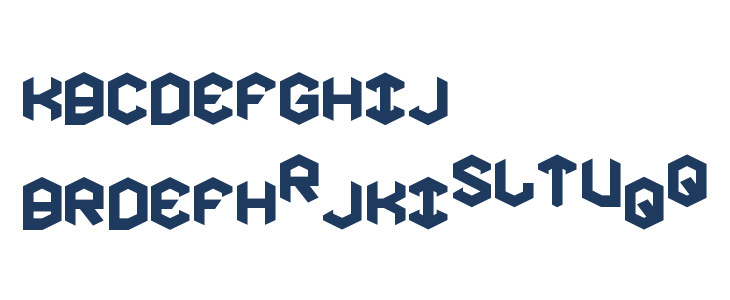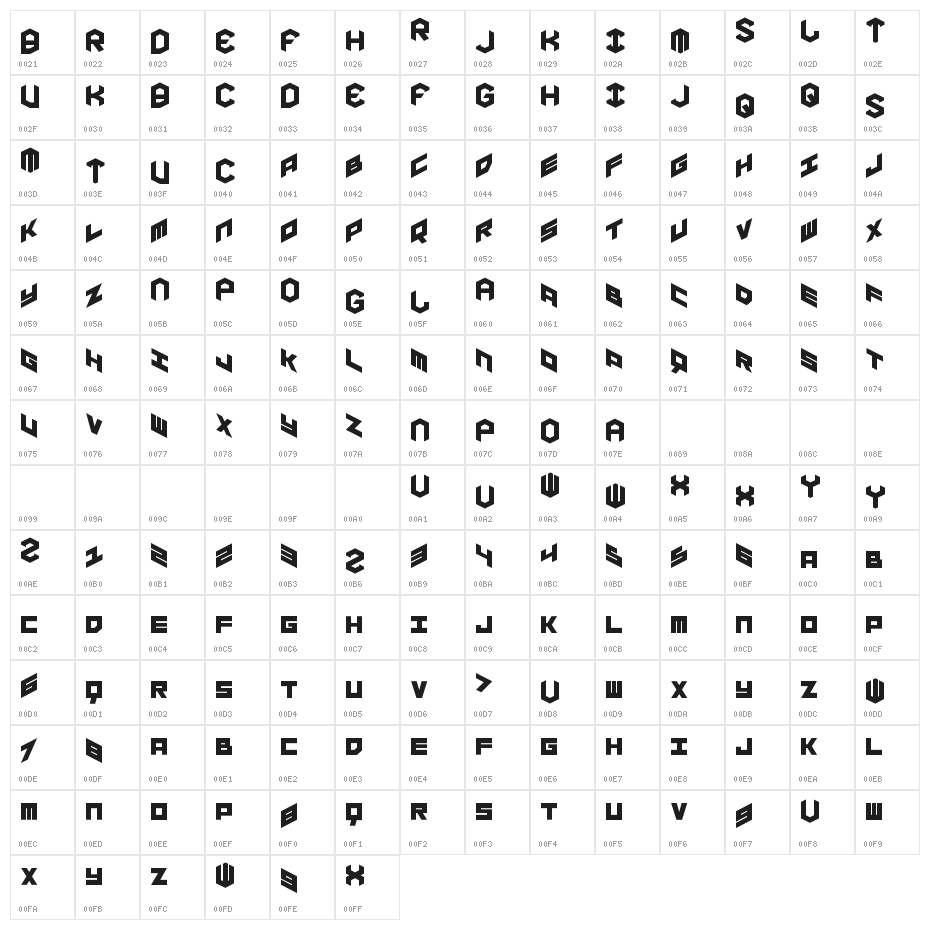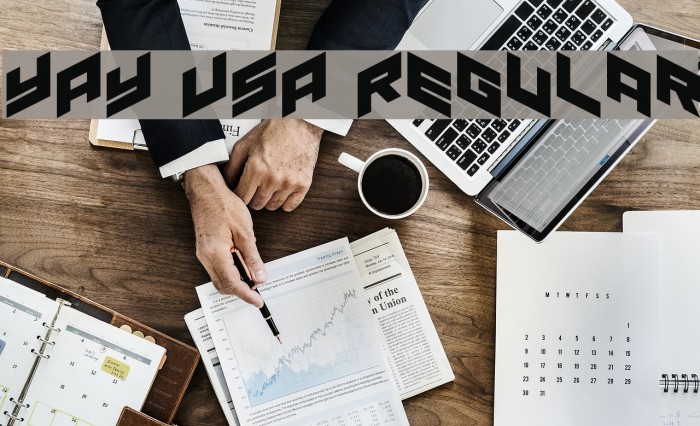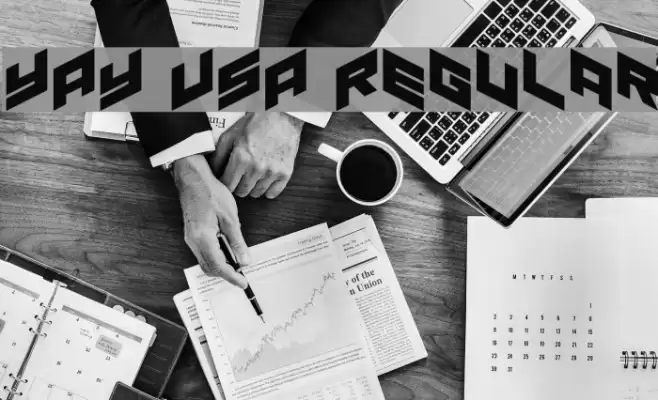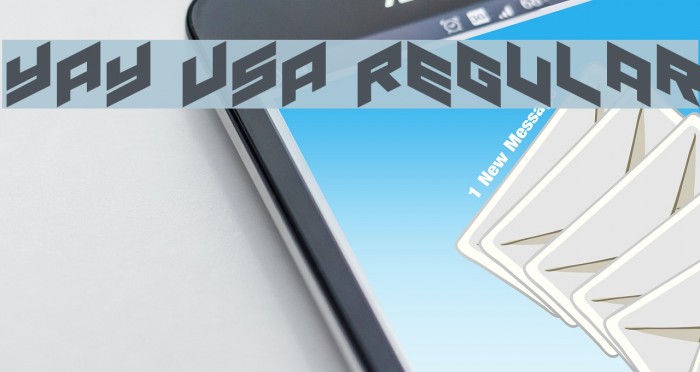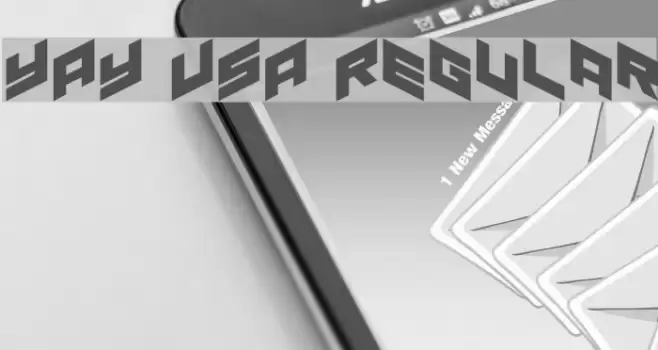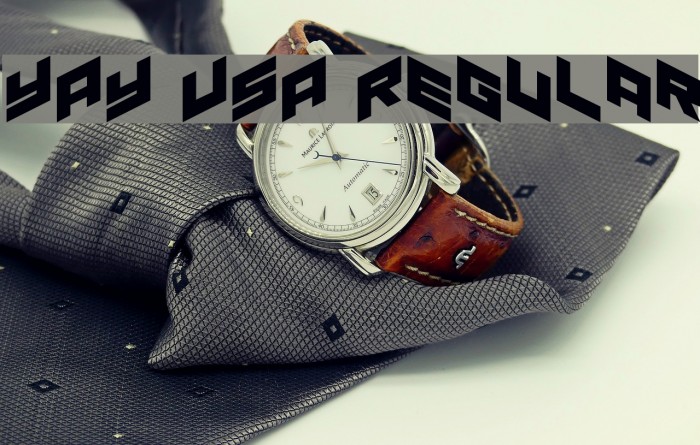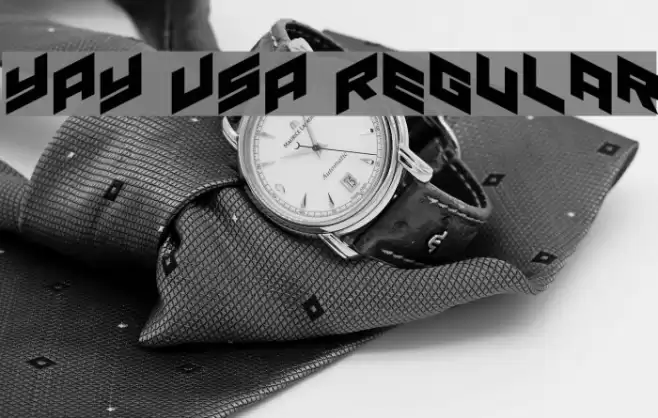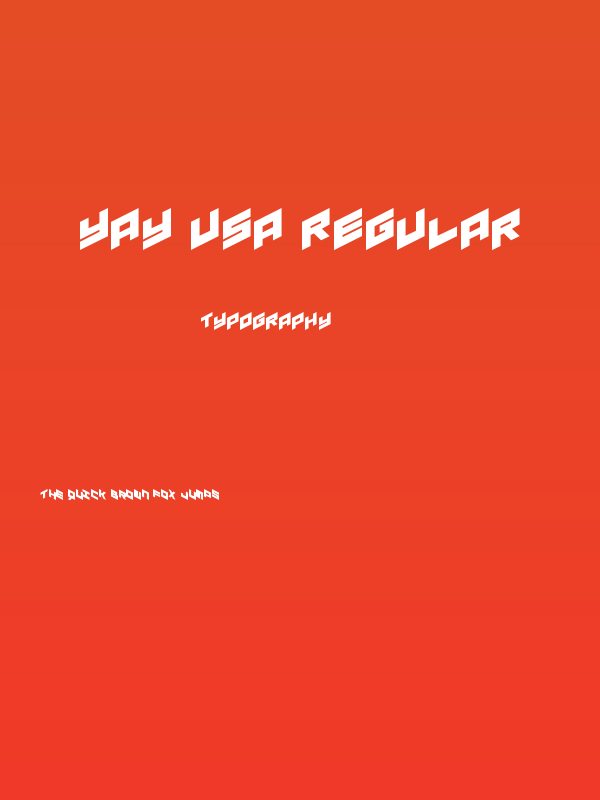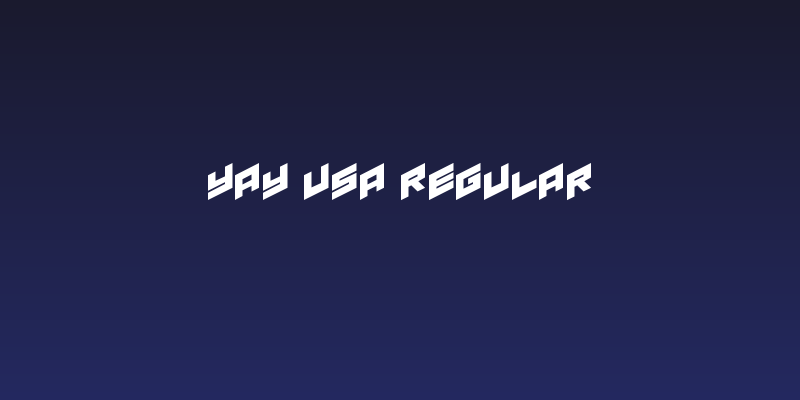
YAY USA Regular Font
YAY USA Regular Description
This font features a bold and angular design, characterized by sharp edges and a geometric structure. The uppercase letters are particularly striking, with a blocky appearance that conveys strength and modernity. The lowercase letters maintain the same angular style, ensuring consistency throughout the typeface. Numbers and special characters are designed with the same attention to detail, making them easily recognizable. The overall aesthetic is dynamic and impactful, suitable for projects that require a strong visual presence.
| Proposed Projects | Ideal for branding, posters, and headlines that require a strong and modern visual impact. |